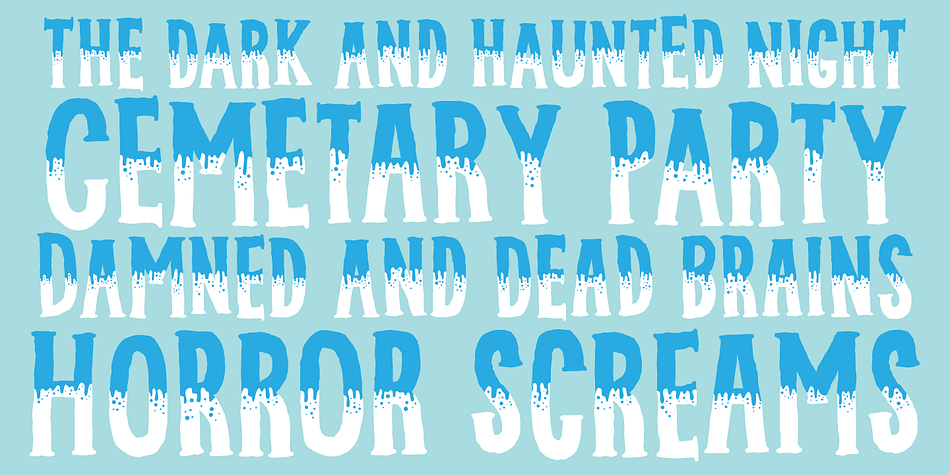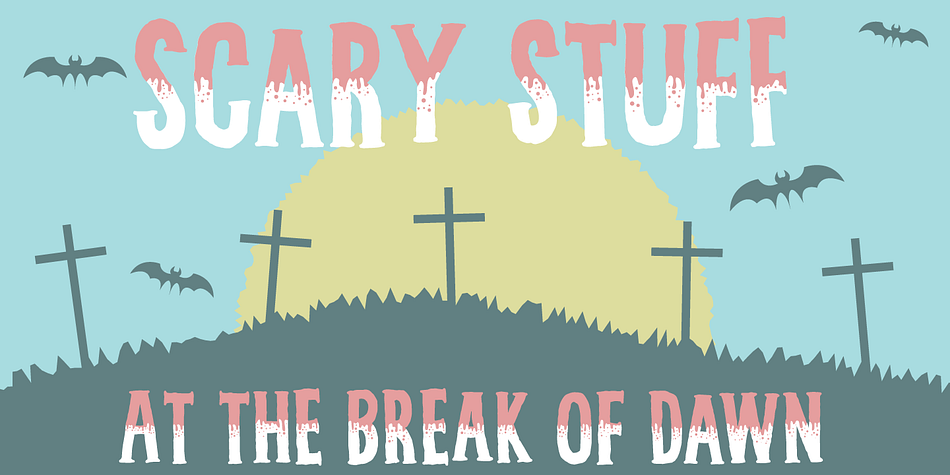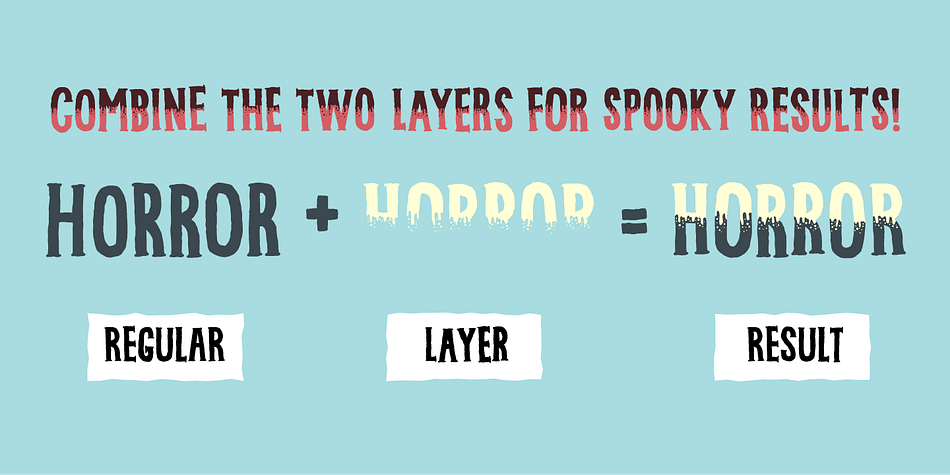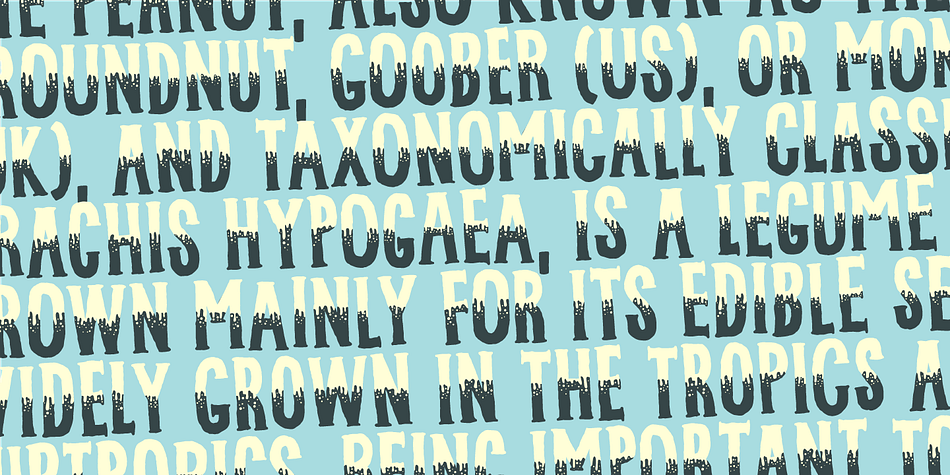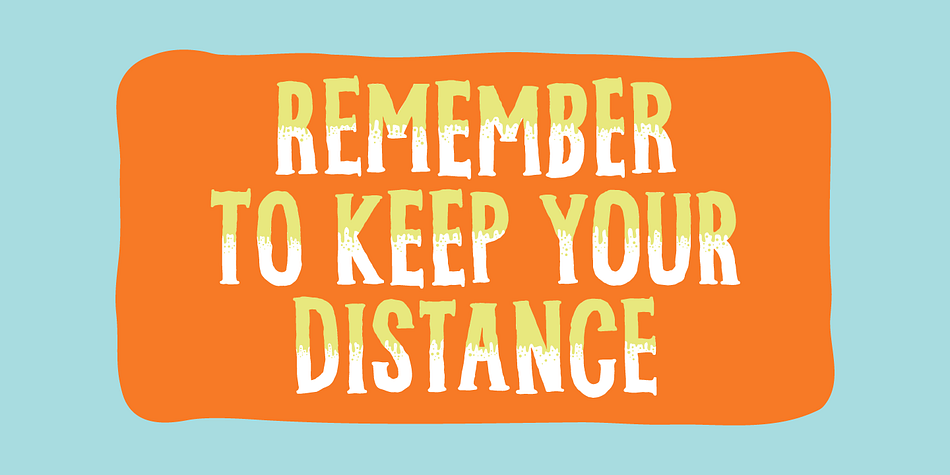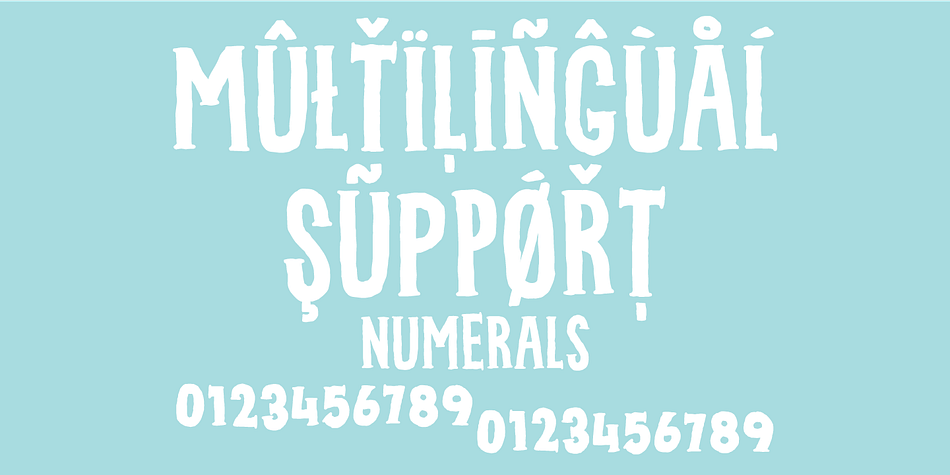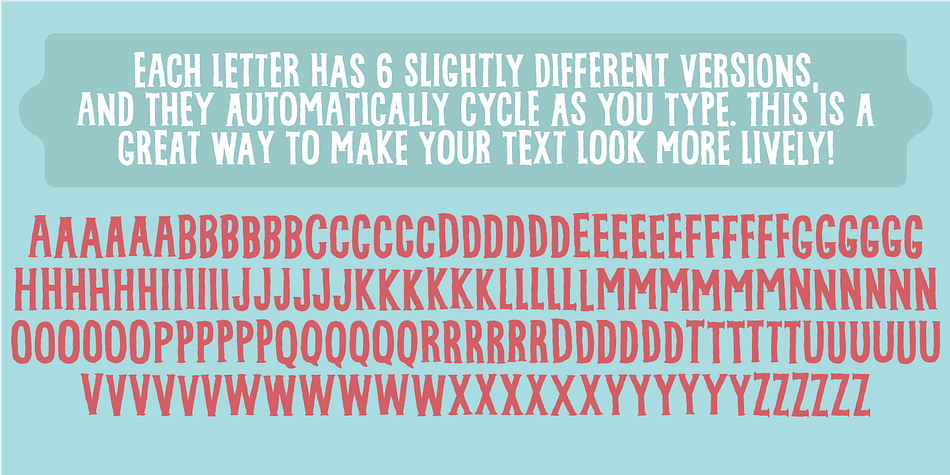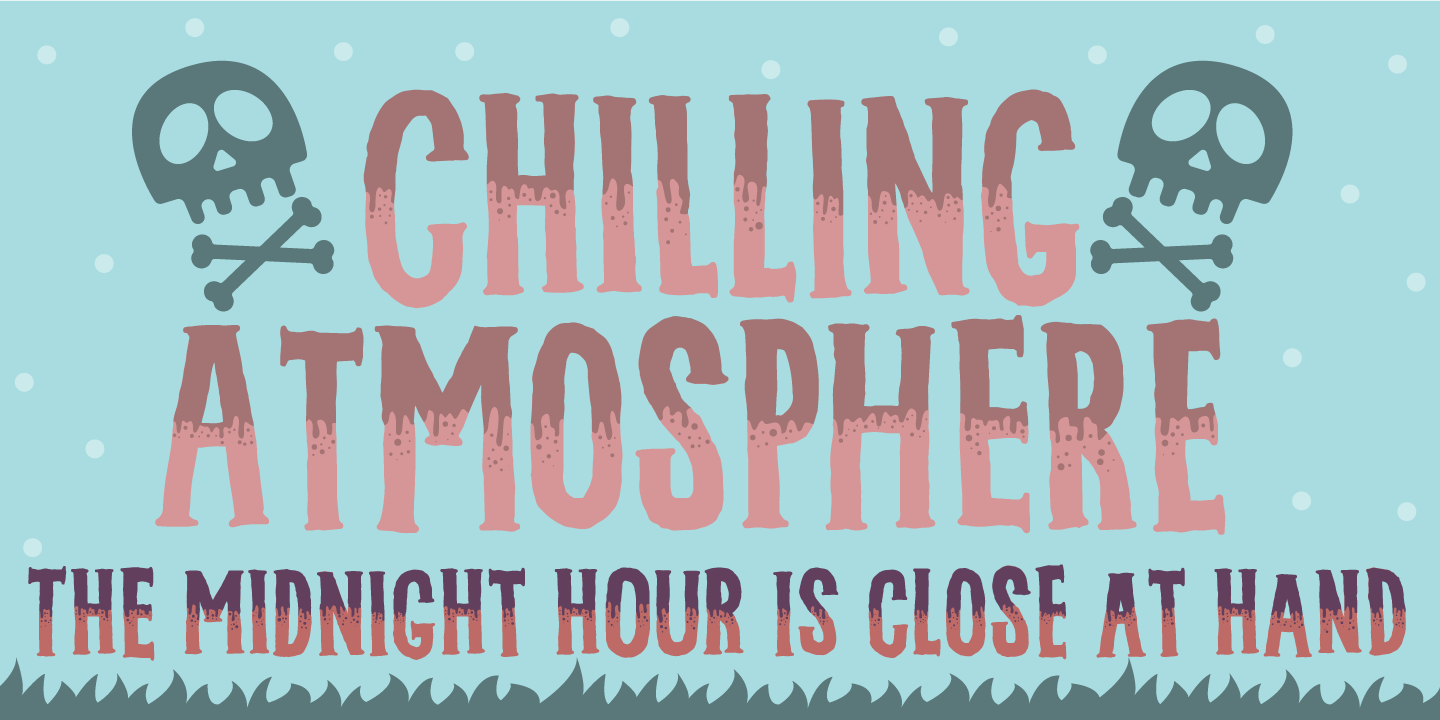
Designed by Jakob Fischer, Chilling Atmosphere is a hand display font family. This typeface has two styles and was published by Pizzadude.dk.
Chilling Atmosphere is inspired by classic horror movies and is super useful to for your creepy postcards, flyers, clothing or perhaps packaging. I’ve added 6 different versions of each letter, to make your creepy text stand even more out!